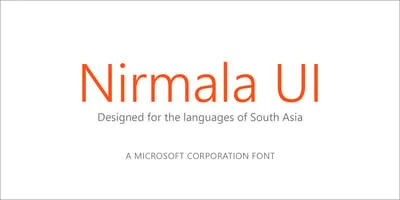
Nirmala UI Font
Nirmala UI Font is ideal for modern interface design, clean web applications, multilingual software development, international business communications, cross-cultural branding projects, global app interfaces, inclusive design systems, accessibility-focused materials, diverse community platforms, and universal user experience solutions.
What makes Nirmala UI Font exciting is its universal clarity that perfectly captures the inclusive accessibility and cross-cultural communication excellence found in modern international design and global user interface standards. This typeface features clean letterforms with international proportions and multilingual details that ensure optimal readability across diverse languages and cultural contexts. The font's inclusive personality and global authenticity make it ideal for technology brands seeking to convey accessibility, universality, and the inclusive design excellence that comes from supporting diverse global communities and multilingual user experiences.
Nirmala UI Font family includes comprehensive weight variations and multilingual alternatives that enhance its international appeal while providing complete design flexibility for global and accessible applications. The font features inclusive ligatures, international ornaments, and universal character variations that create authentic global atmosphere for international and accessibility-focused branding.
Technology companies and global organizations consistently choose Nirmala UI Font for projects requiring authentic international appeal and accessibility credibility. The font's universal character excels in applications targeting diverse global audiences who appreciate genuine inclusive design and multilingual support. Whether you're designing for international software, global platforms, or accessibility-focused services, this inclusive typeface delivers the international authenticity and universal accessibility that resonates with audiences seeking genuine global inclusion and the cross-cultural communication excellence that defines modern international design and inclusive user experience standards.